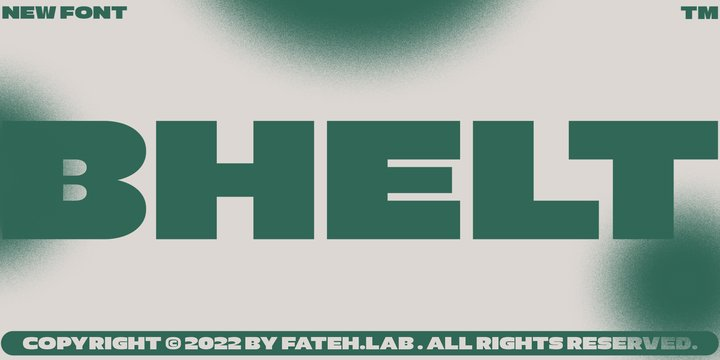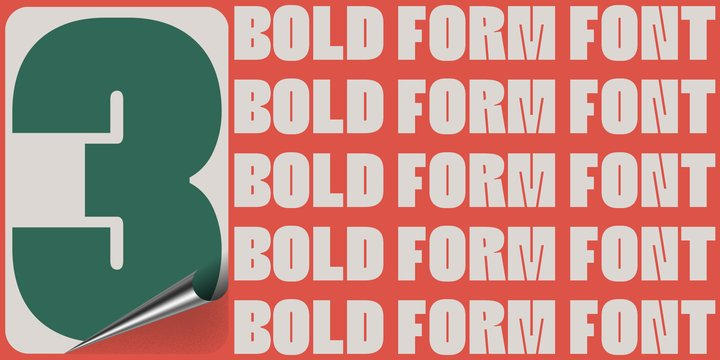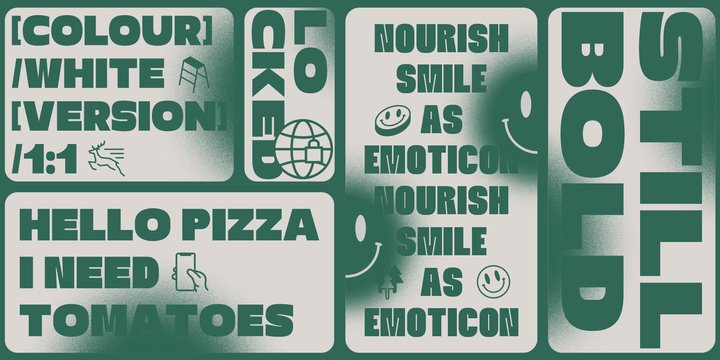
Bhelt Font Family
Bhelt Font FamilyBHELT is a strong and elegant display typeface. Inspired by the style of design that is currently popular, and this is the answer to all the needs of every idea that you will pour in this modern era, with a thick and solid style in each letter as if this font has a soul in it.
Its weight is superior in posters, social media, headlines, titles, large format print – and wherever you want to be noticed.